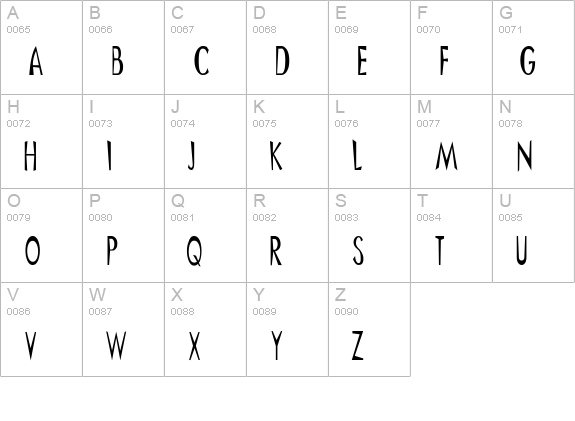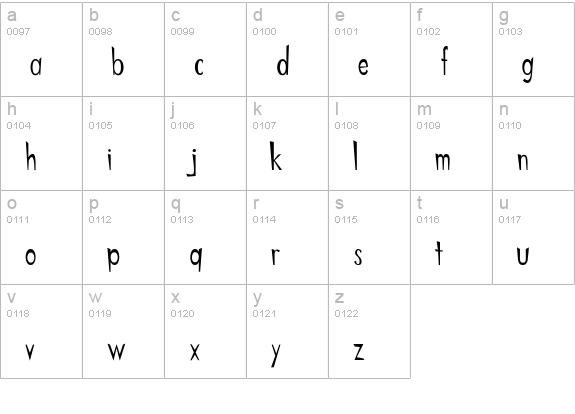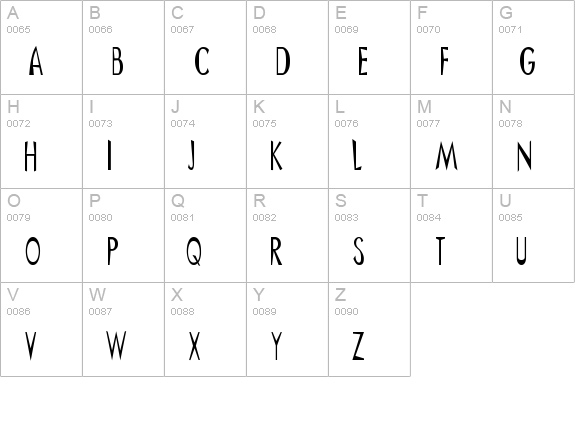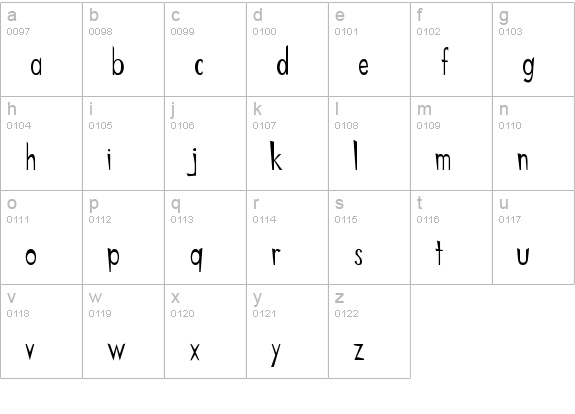
Ditnees Font Details
Introducing Ditnees font, a beautifully crafted typeface that exudes elegance and sophistication. Its sleek and modern design makes it perfect for a wide range of projects, from branding to editorial design. With its unique letterforms and clean lines, Ditnees font is sure to make your text stand out. What's even better is that Ditnees font is completely free to download at FontsMarket.com! That's right, you can easily access this stunning font without any cost. So why wait? Enhance your designs with the timeless beauty of Ditnees font today.